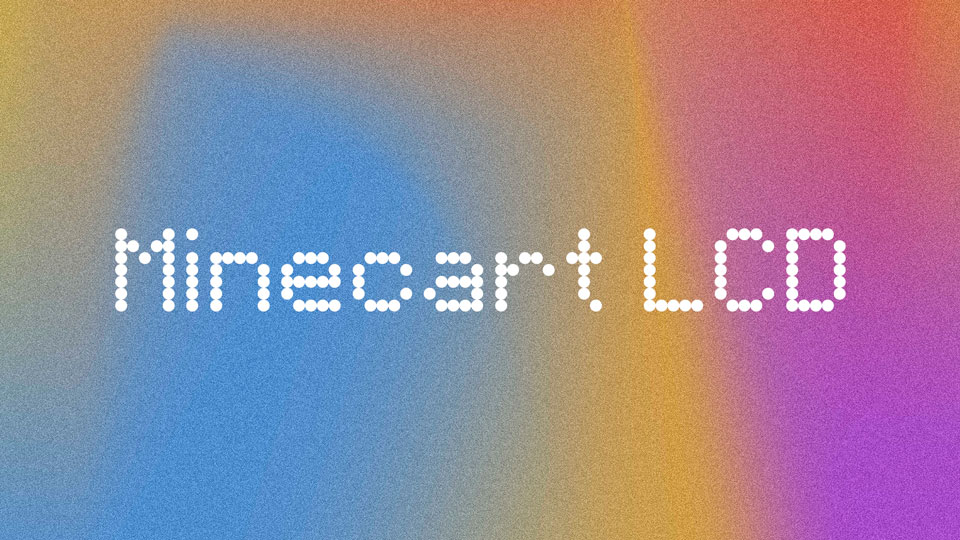
Minecart LCD Font
Minecart LCD is a typeface inspired by the distinctive and nostalgic aesthetic of dot matrix LCDs. The characters are constructed with a grid of dots, reminiscent of the pixelated displays that defined the digital era.
Minecart LCD font offers a unique blend of simplicity and character. The monospaced nature of the font enhances its retro charm, providing a uniform and structured appearance that aligns with the precision of dot matrix technology.
This typeface is a versatile choice for a range of applications, from digital interfaces and electronic signage to retro-themed designs and tech-inspired branding. The pixelated aesthetic adds a touch of authenticity and nostalgia, making Minecart LCD font the perfect choice for projects that celebrate the digital legacy of yesteryears.